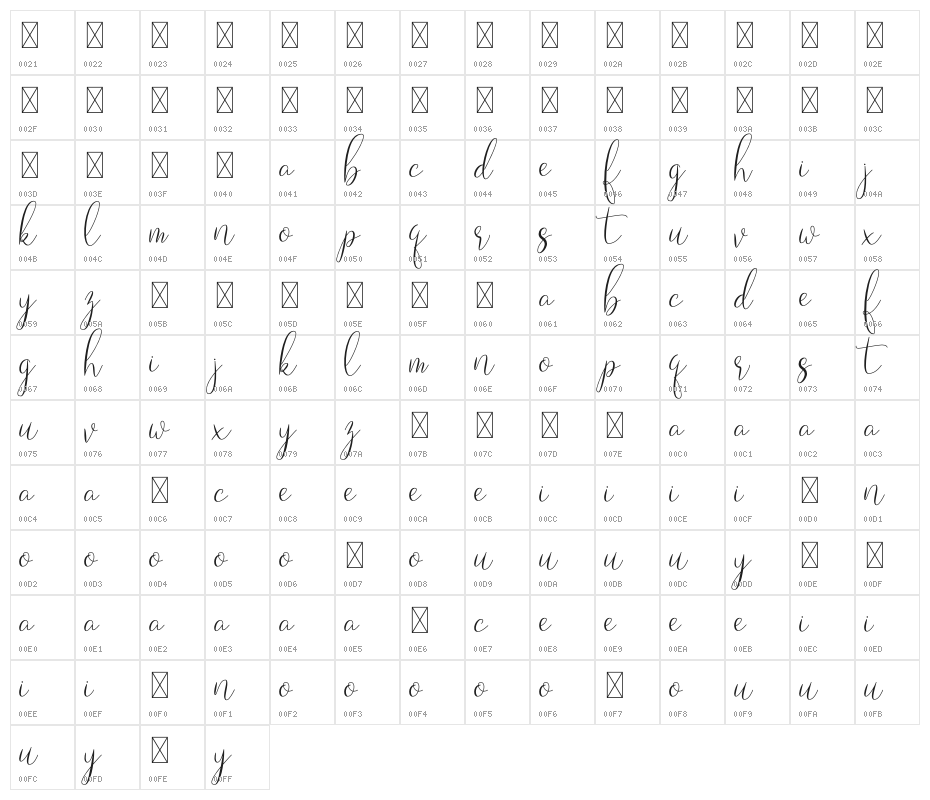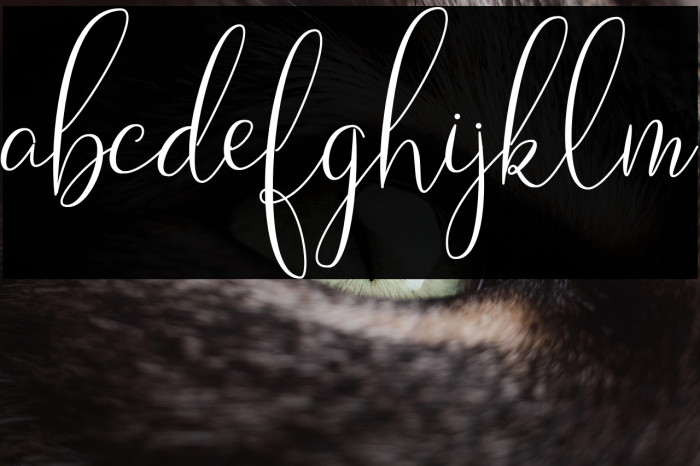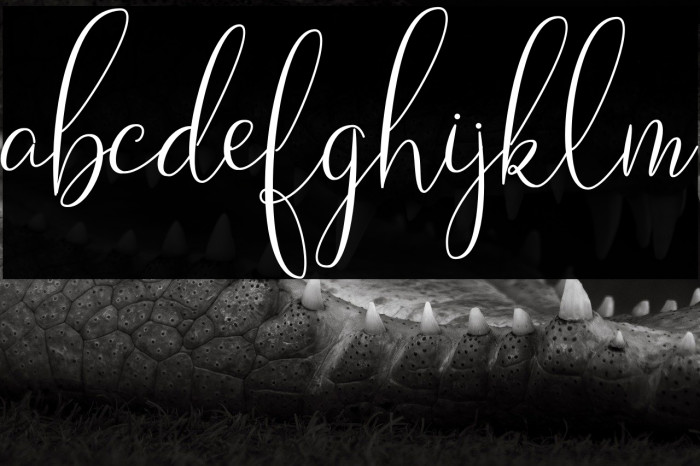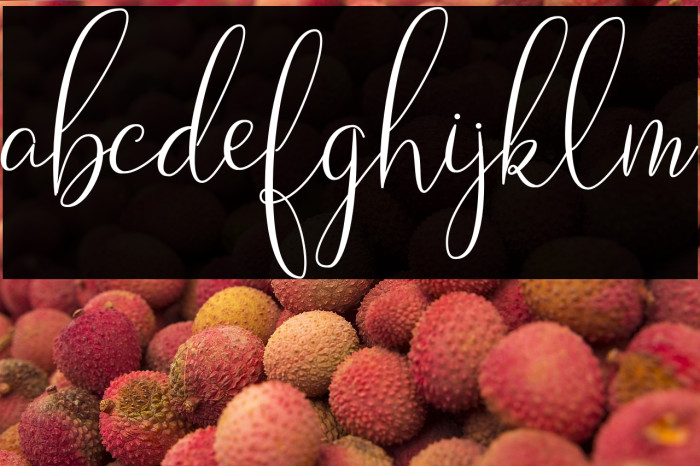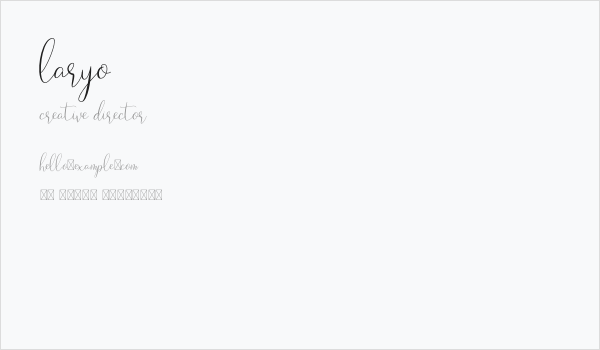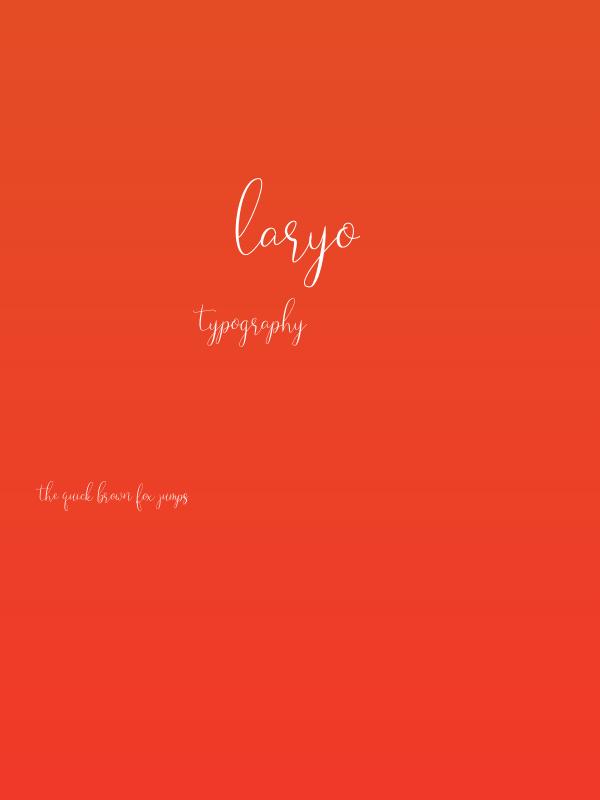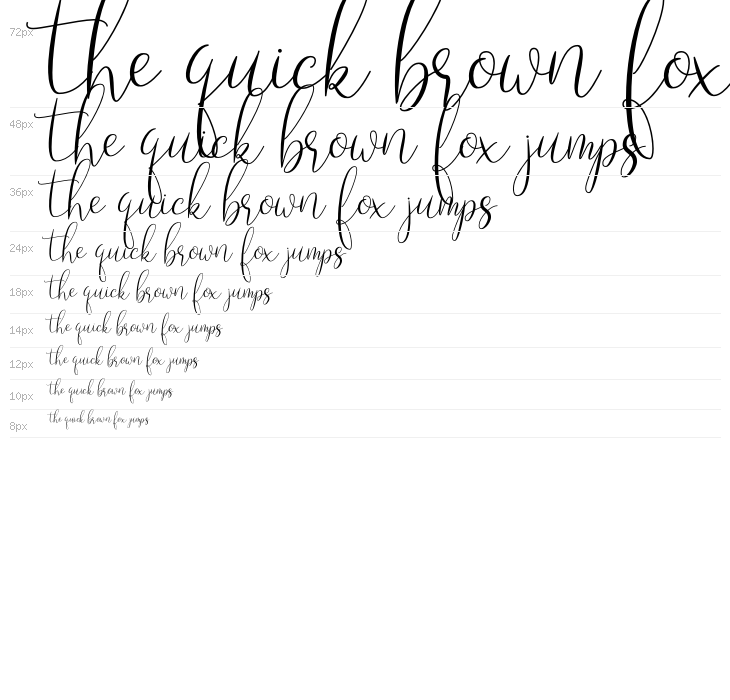
Laryo Font
Laryo Description
This font exhibits a graceful and flowing script style, characterized by its elegant, cursive letterforms. Each character is intricately designed with smooth curves and delicate strokes, creating a sense of fluidity and sophistication. The uppercase letters are slightly larger and more ornate, while the lowercase letters maintain a consistent rhythm and balance. The font's overall appearance is both classic and contemporary, making it versatile for various design applications. The characters are well-spaced, ensuring readability while maintaining the artistic flair typical of script fonts. This font is ideal for projects that require a touch of elegance and personalization.